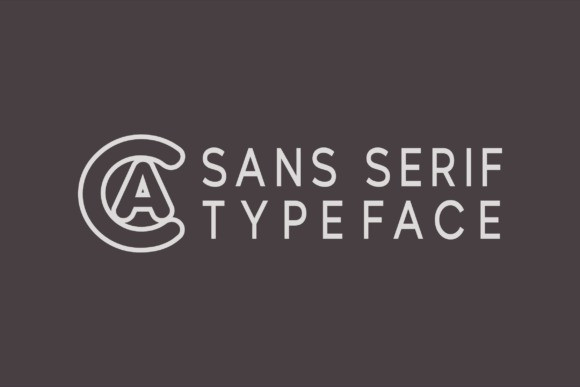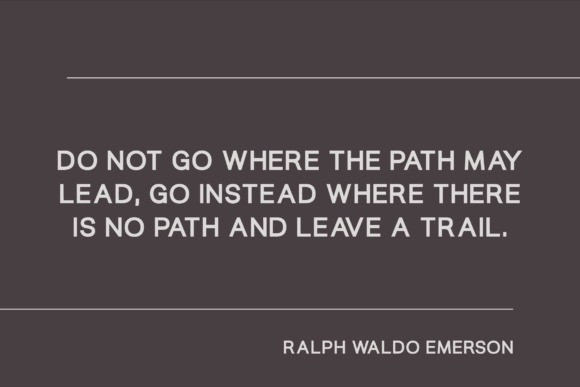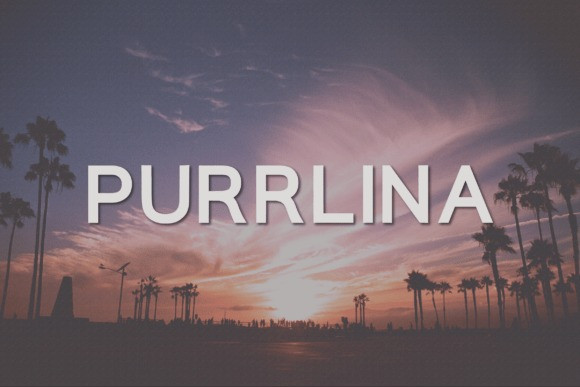
Purrlina Font
Purrlina Font a modern, classy sans serif typeface. A sans serif typeface that contains upper characters, number 0-9 and a range of punctuation and symbols. An extremely versatile font, perfect for logos, weddings, invitations, quotes, advertisements, print, magazines, and more!